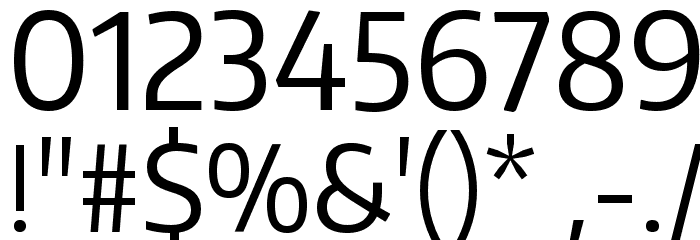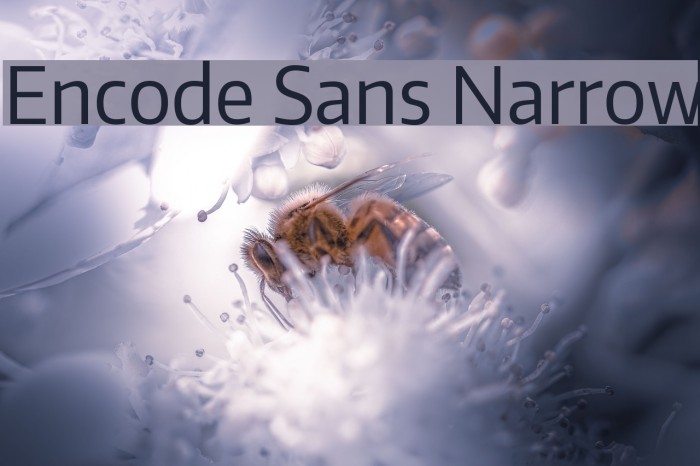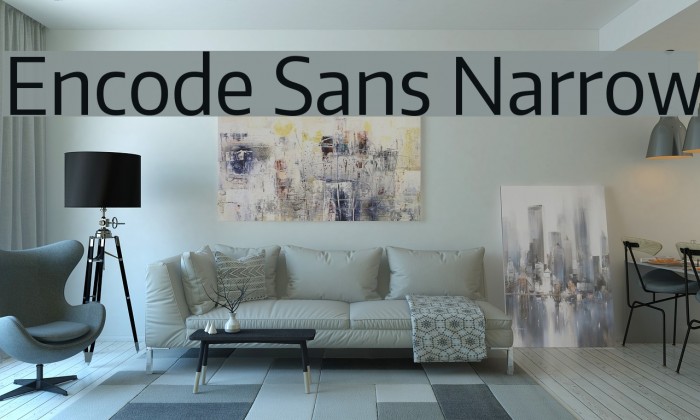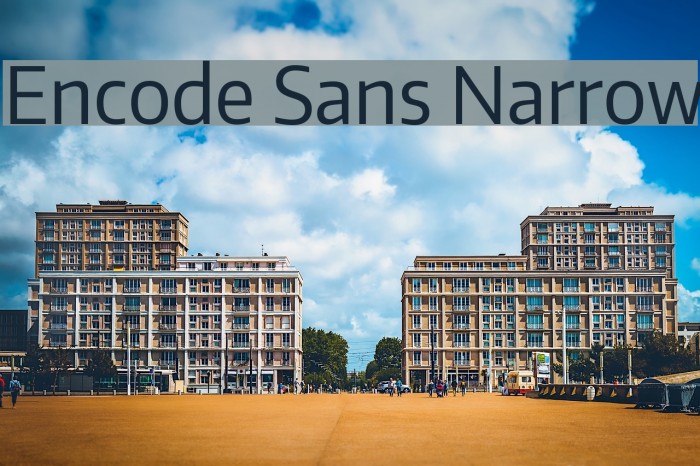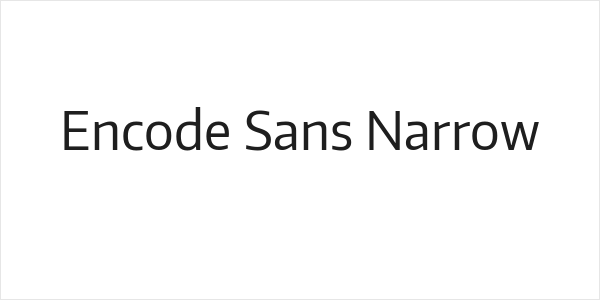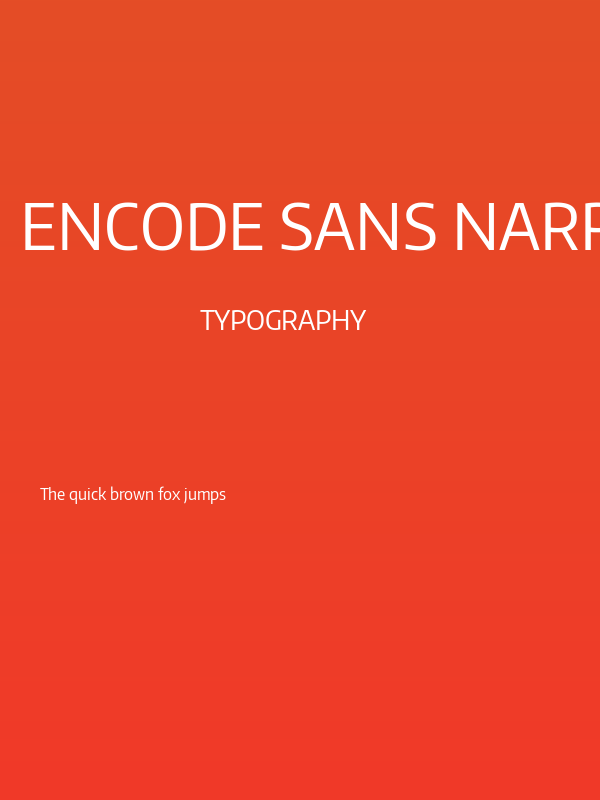
Encode Sans Narrow Font
Encode Sans Narrow Description
This font features a clean and modern sans-serif design with a narrow width, making it ideal for space-efficient text layouts. The characters are uniform and well-proportioned, offering a sleek and professional appearance. Its simplicity and clarity make it suitable for a wide range of applications, from digital interfaces to print media. The font maintains a consistent stroke width, providing a harmonious and balanced look across all characters. Its versatility is enhanced by its legibility at various sizes, ensuring readability in both small and large formats.
Use CaseHeadlines, Body text, Logos
Proposed ProjectsIdeal for web design, app interfaces, corporate branding, and editorial layouts.